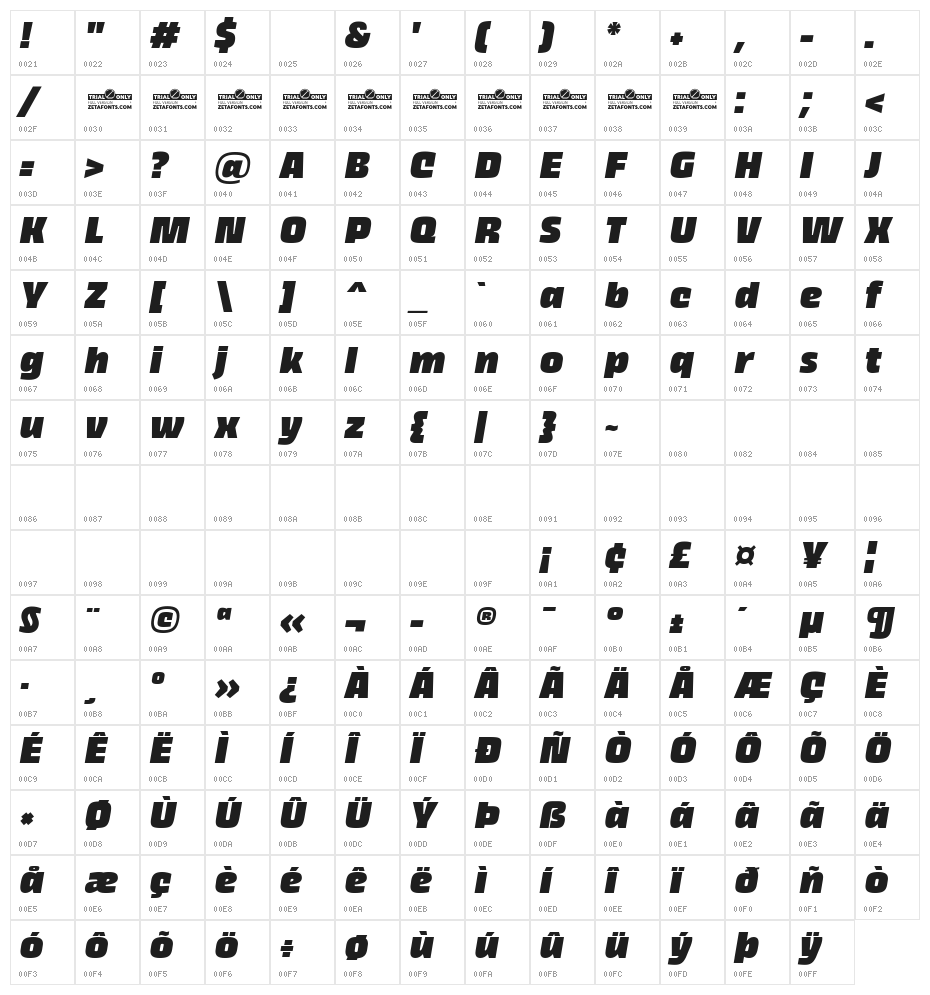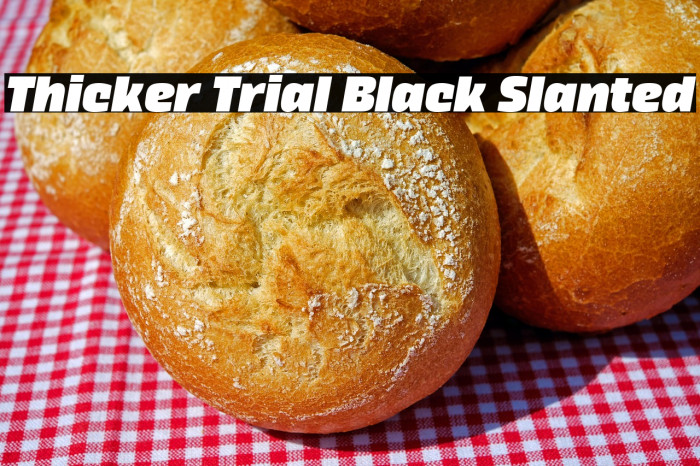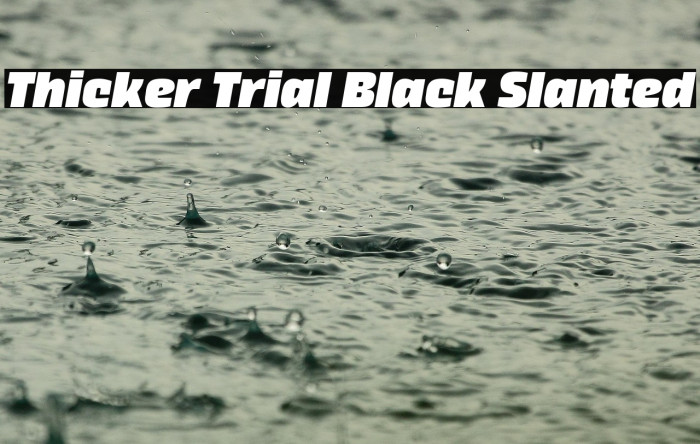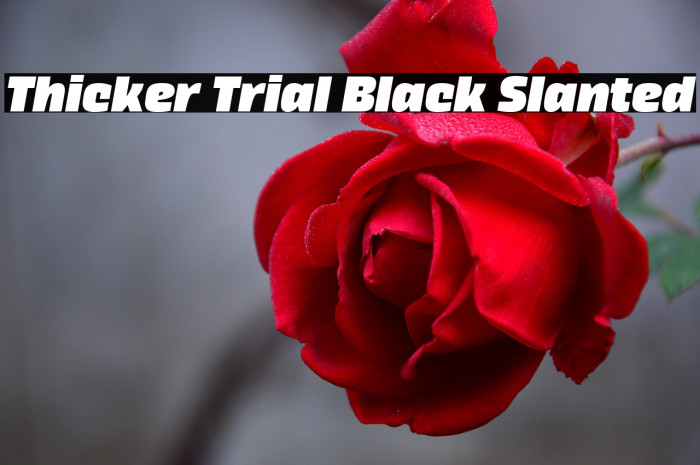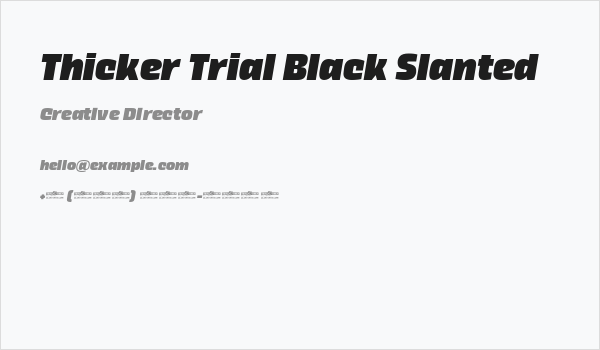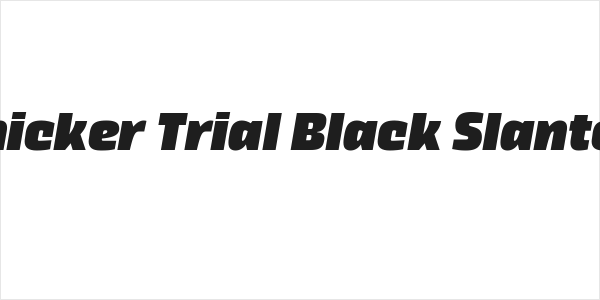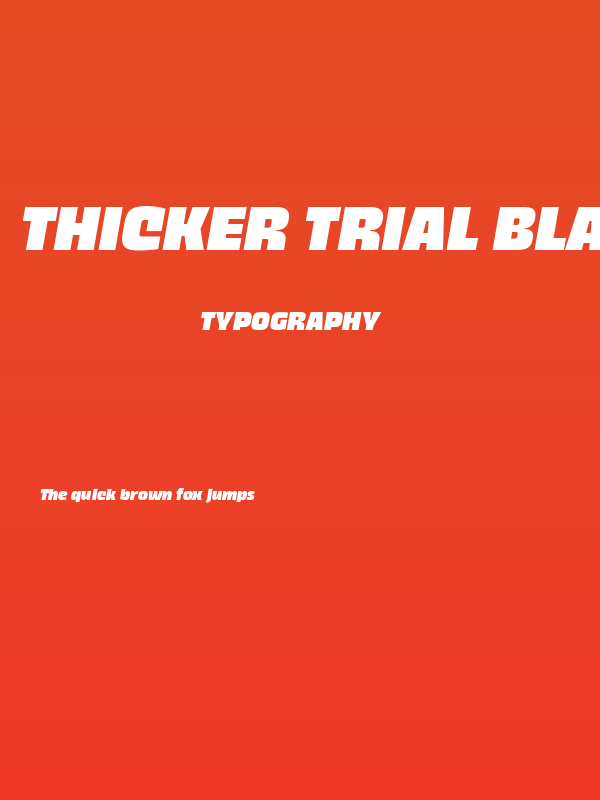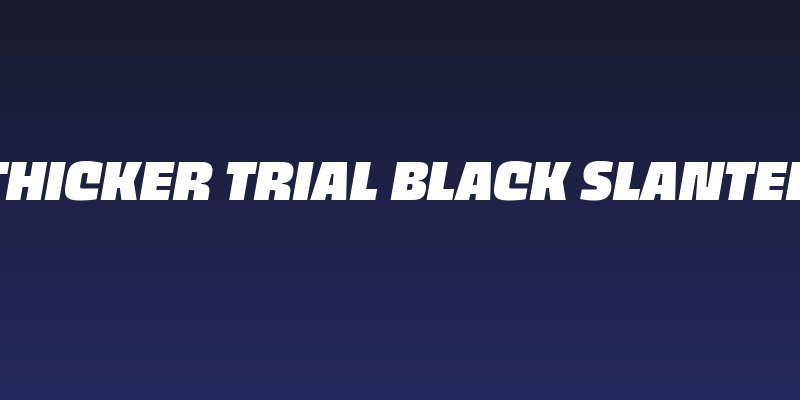
Thicker Trial Black Slanted Font
Thicker Trial Black Slanted Description
This font exhibits a bold and impactful design with a strong slant, giving it a dynamic and energetic appearance. The characters are thick and robust, making them highly visible and attention-grabbing. The uppercase and lowercase letters maintain a consistent style, with smooth curves and sharp angles that enhance readability. The numbers and special characters are designed to match the boldness of the alphabet, ensuring uniformity across all text elements. This font's slanted style adds a sense of motion and modernity, making it suitable for various creative applications.
| Proposed Projects | Ideal for sports branding, dynamic posters, modern advertising, and eye-catching headlines. |